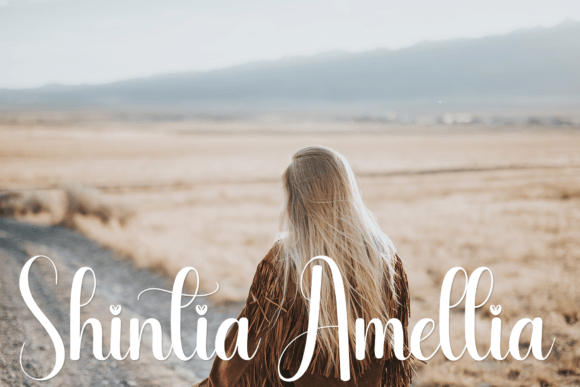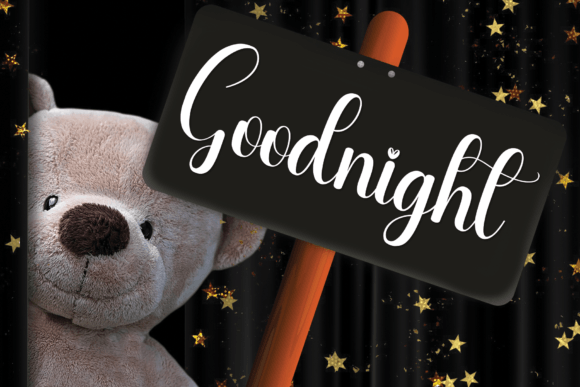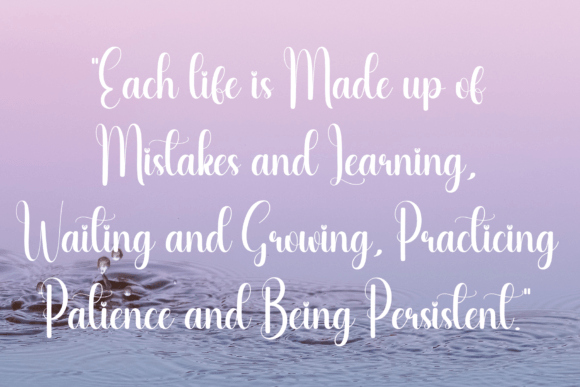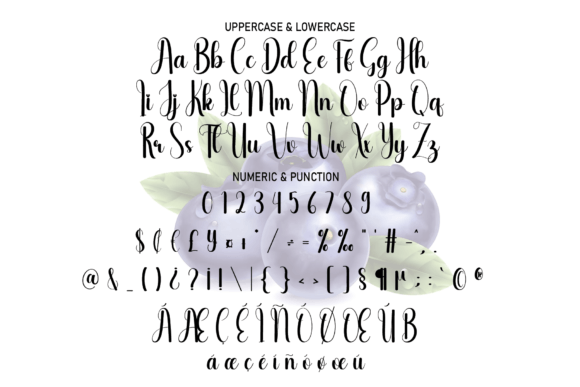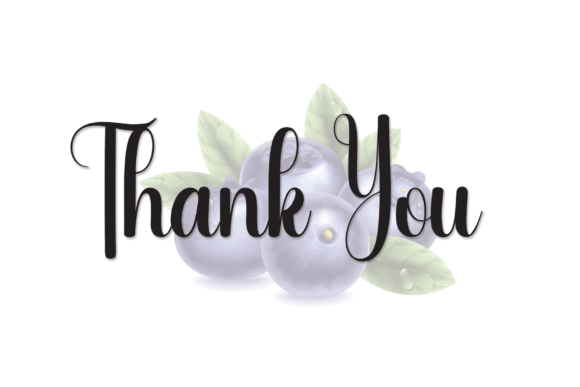
Introducing Blueberry Font: The Elegant and Timeless Choice for Designers
Are you looking for a font that adds a touch of elegance and sophistication to your designs? Look no further than Blueberry Font, a beautiful flowing handwritten font that is perfect for a wide range of projects. With its incredibly distinct and timeless style, Blueberry Font is sure to fall in love with its charm and versatility.
What is Blueberry Font?
Blueberry Font is a carefully crafted handwritten font that exudes elegance and refinement. Its flowing lines and curves create a sense of movement and fluidity, making it perfect for designs that require a touch of sophistication. Whether you’re working on a branding project, a wedding invitation, or a packaging design, Blueberry Font is sure to impress.
Key Features of Blueberry Font
- Elegant and Refined: Blueberry Font boasts an elegant and refined style that is perfect for designs that require a touch of sophistication.
- Flowing Handwritten: The font’s flowing handwritten style creates a sense of movement and fluidity, making it perfect for designs that require a dynamic feel.
- Distinct and Timeless: Blueberry Font’s incredibly distinct and timeless style ensures that your designs will stand out from the crowd and remain relevant for years to come.
- Versatile: Blueberry Font is perfect for a wide range of projects, from branding and advertising to packaging and wedding invitations.
Why Choose Blueberry Font?
With so many fonts to choose from, why should you choose Blueberry Font for your next project? Here are just a few reasons why Blueberry Font stands out from the crowd:
- Unique Style: Blueberry Font’s unique style ensures that your designs will stand out from the crowd and grab attention.
- High-Quality: Blueberry Font is a high-quality font that is designed to deliver exceptional results.
Tips and Tricks for Working with Blueberry Font
Here are a few tips and tricks to help you get the most out of Blueberry Font:
- Pair with Bold Fonts: Blueberry Font pairs perfectly with bold fonts, creating a striking contrast that adds visual interest to your designs.
- Experiment with Colors: Blueberry Font looks great in a wide range of colors, from bold and bright to soft and pastel.
- Use for Headings and Titles: Blueberry Font is perfect for headings and titles, adding a touch of elegance and sophistication to your designs.
Blueberry Font is a beautiful and elegant handwritten font that is perfect for designers and crafters looking to add a touch of sophistication to their designs. With its incredibly distinct and timeless style, Blueberry Font is sure to fall in love with its charm and versatility.